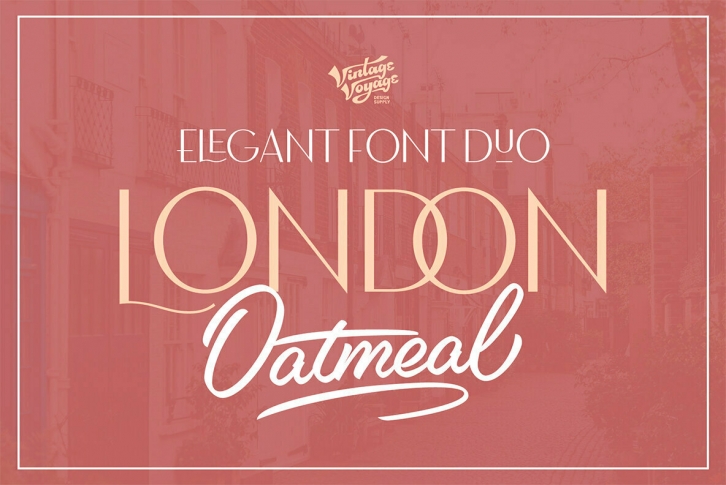
London Oatmeal. Elegant modern art-deco inspired sans with a lot of ligatures with retro look stylish brush script. It's nice font pair for use it in blogs, posters, magazines, logo’s or greeting/wedding cards. The sans has caps lowercase, so you can combine them in many ways. More than 100 open type features as alternates, fina’s, swashes and ligatures.
- Well Kerned
- Open Type Features (Alternates, Ligatures, fina's & swashes as alternates for script numerals 0-9)